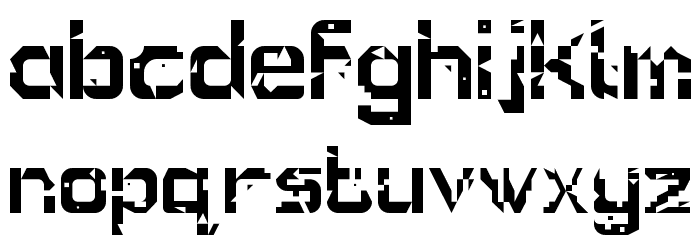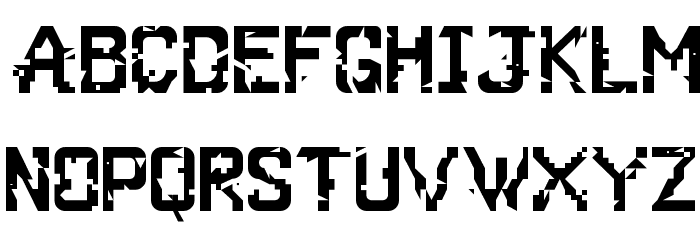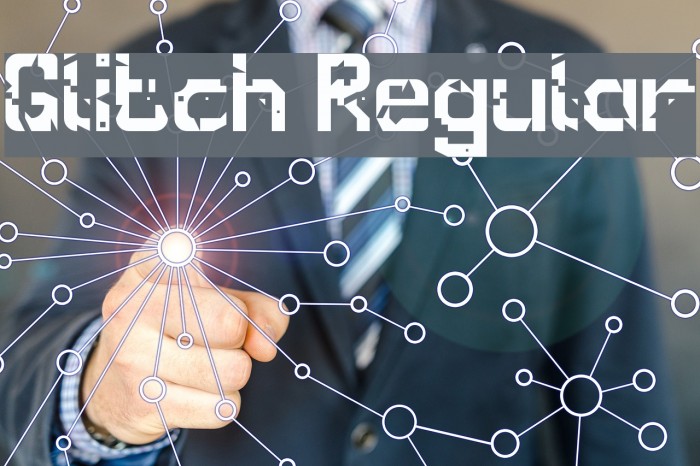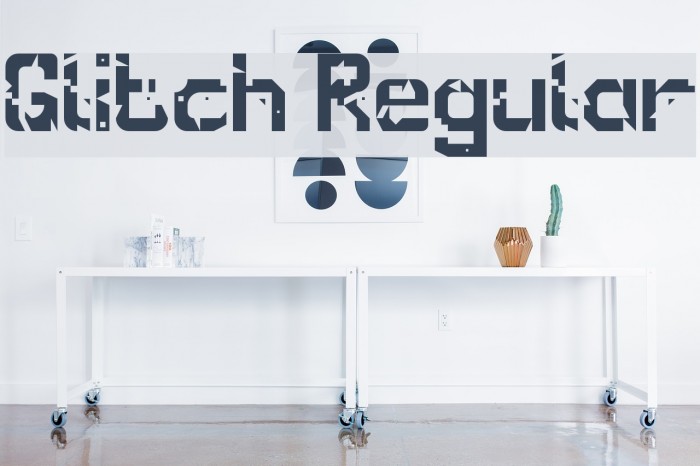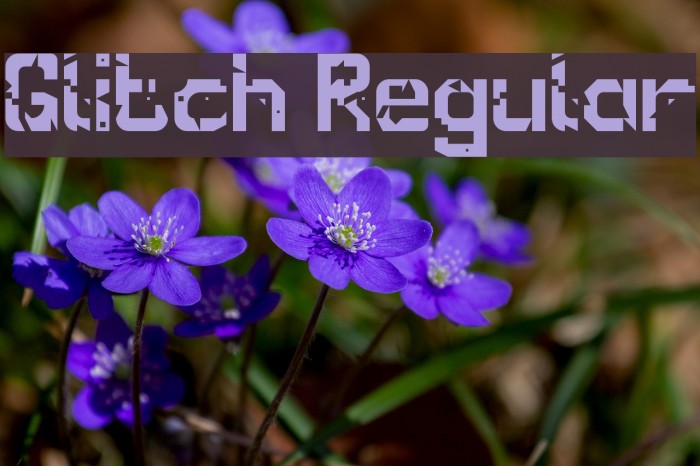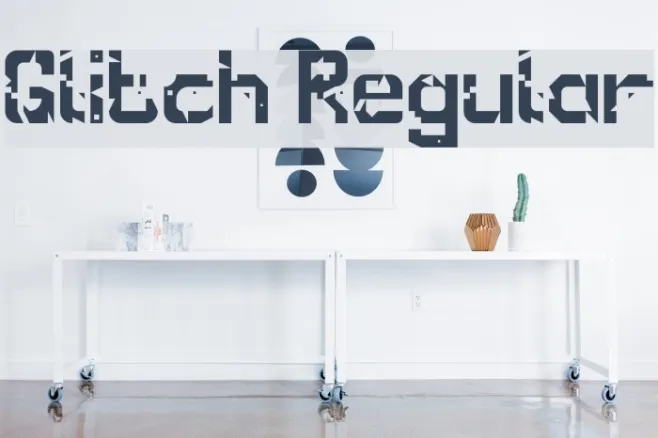
Glitch Regular Font
This font features a distinct glitch effect, giving it a fragmented and digital appearance. The characters are bold and angular, with portions seemingly missing or misaligned, creating a sense of movement and distortion. This style mimics a digital error or interference, making it ideal for modern, tech-inspired designs. The uppercase and lowercase letters maintain a consistent style, with sharp edges and a blocky structure. The numerals and special characters follow the same glitch aesthetic, ensuring a cohesive look across all text elements.
A bold, glitch-inspired font with a fragmented, digital appearance.
- Proposed Projects: Ideal for digital art, tech-themed posters, video game graphics, and futuristic branding.